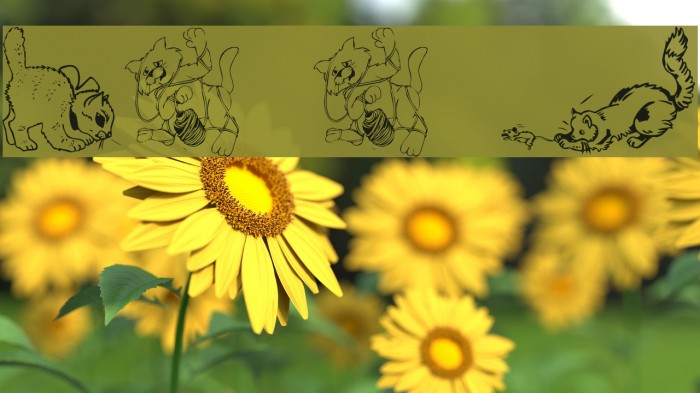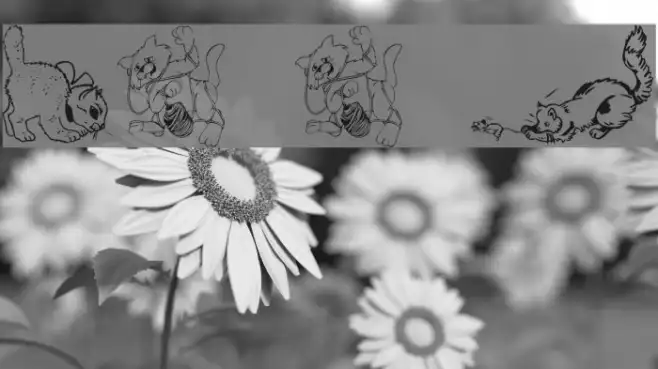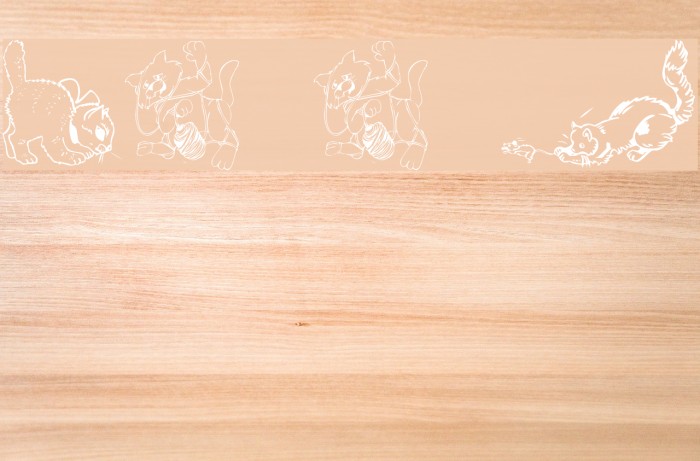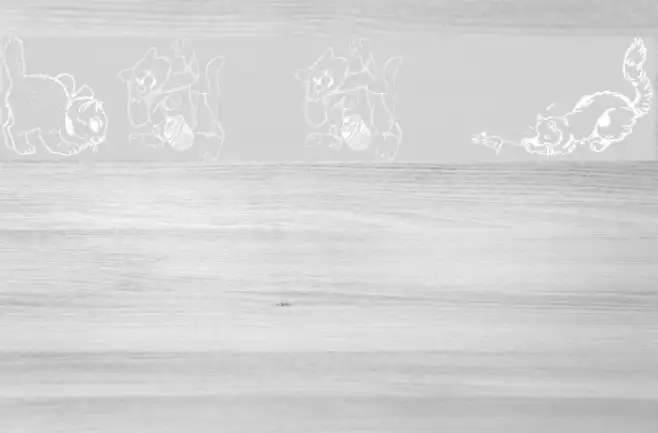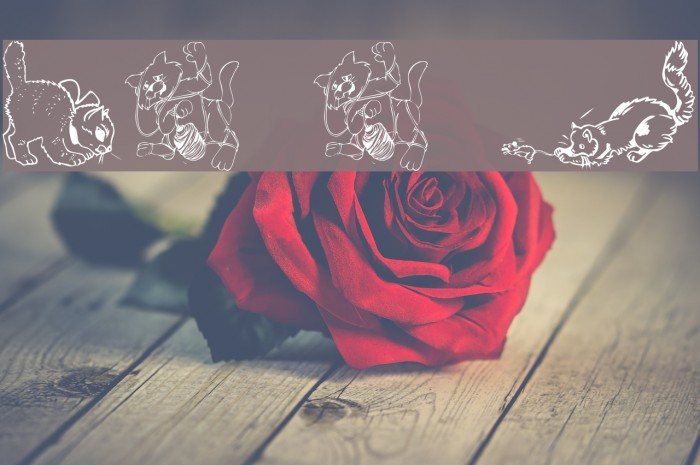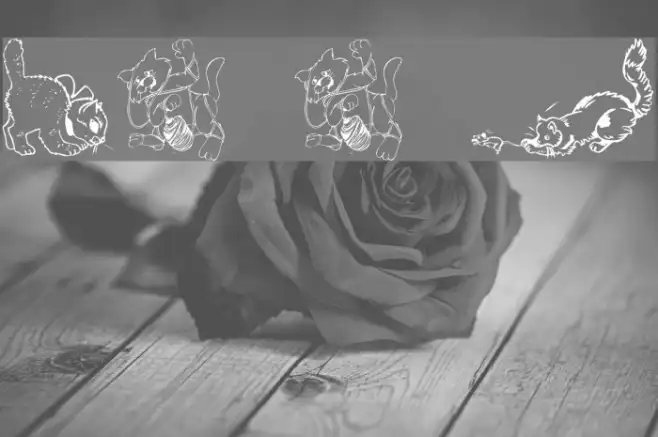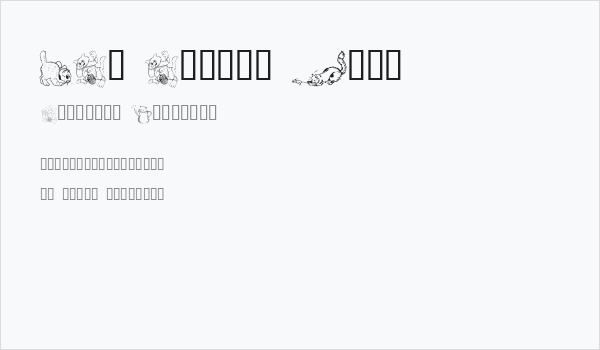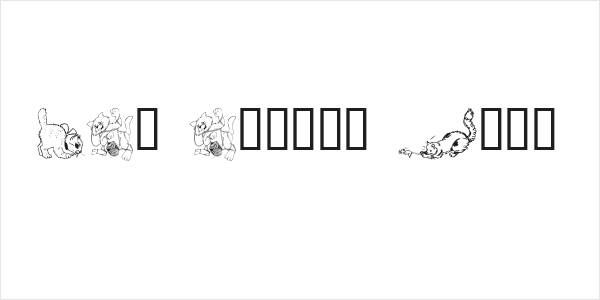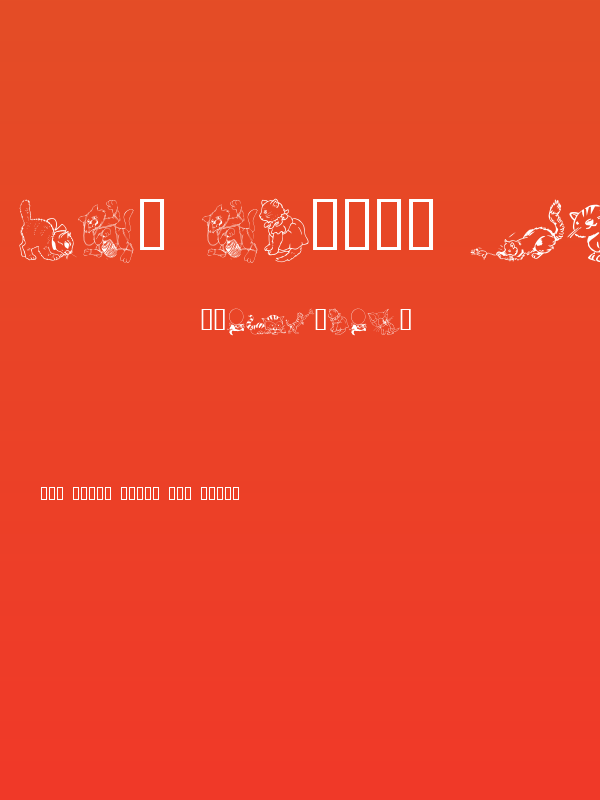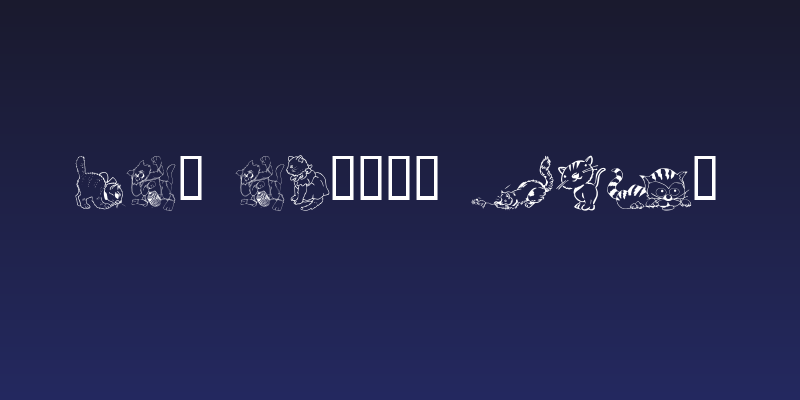
LCR Cat's Meow Font
LCR Cat's Meow Description
A playful decorative font featuring whimsical cartoon cat illustrations for each character, with expressive poses and humorous details. The glyphs are unique drawings rather than traditional letterforms.
| Overall Style | Playful, Whimsical, Decorative |
| Use Case | Logos, Headlines, Themed graphics, Children's materials |
| Proposed Projects | Children's books, greeting cards, playful posters, pet shop branding, party invitations. |